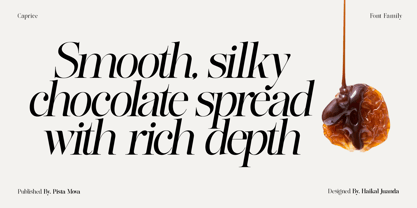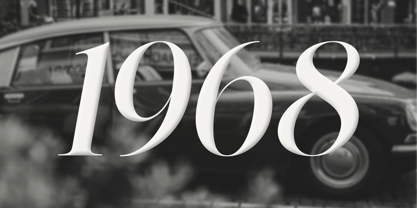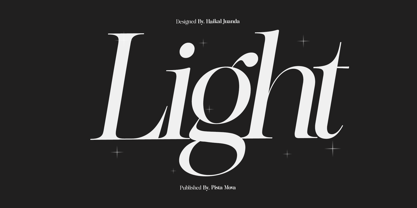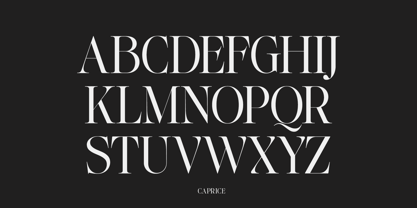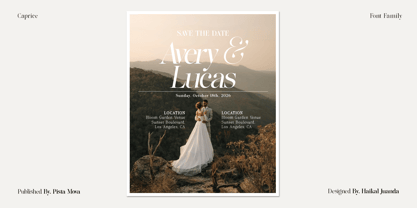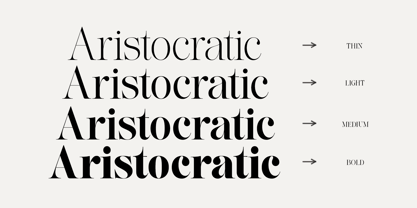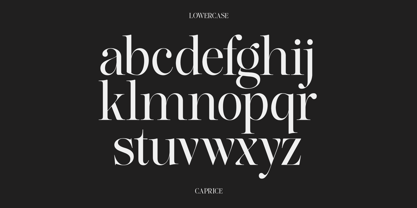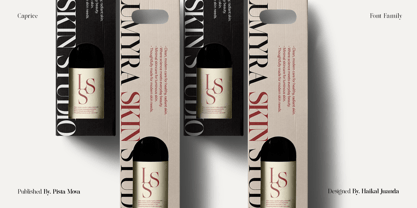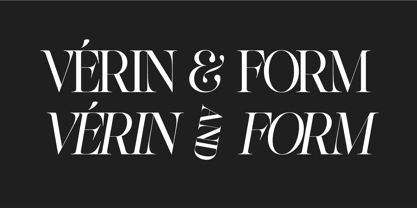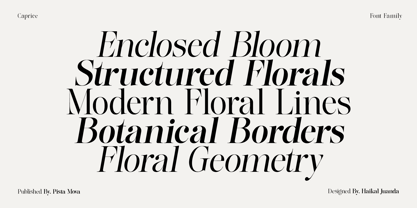
Lifestyle Icons
The Lifestyle Icons Font Family was designed by Haikal Juanda and published by Pista Mova. Lifestyle Icons contains 9 styles and family package options. More about this family
Introducing Lifestyle Icons A Modern Serif with Timeless Elegance Lifestyle Icons is a thoughtfully crafted serif typeface designed to bring refined elegance into contemporary design. This complete package includes 8 font files across 2 family styles, offering exceptional versatility for a wide range of creative applications—from editorial layouts to distinctive brand identities. Blending classic charm with a modern sensibility, Lifestyle Icons features high-contrast strokes, graceful curves, and well-balanced proportions that create a sophisticated visual rhythm. Every character is designed to feel confident yet subtle, enhancing the overall aesthetic of any design. Whether used for elegant editorial compositions, bold branding, or engaging web experiences, Lifestyle Icons delivers a refined presence that elevates your work. Step into the world of Lifestyle Icons, where each letterform is meticulously shaped to express both strength and delicacy. Carefully sculpted serifs and harmonious proportions reflect the enduring power of classic typography, while true italics add a dynamic flow and distinctive personality—bringing movement, clarity, and visual interest to your layouts. Key Features Effortless Elegance Clean lines and balanced proportions create a timeless look that adapts beautifully to modern design needs. Multilingual Support Supports over 90 languages, ensuring your message reaches a global audience with confidence. True Slant Not a simple slant—these italics are purpose-built to harmonize with the upright styles, delivering a cohesive and elegant rhythm. Perfect For Editorial Design Magazines, newspapers, and books—Lifestyle Icons offers excellent readability paired with timeless sophistication. Branding & Logos Create strong, memorable brand identities with a refined and luxurious tone. Web Design High contrast and clean forms ensure optimal legibility across all screen sizes. Packaging & Print Elevate product packaging and printed materials with a touch of understated luxury. Invitations & Stationery Leave a lasting impression through elegant typography on invitations, greeting cards, and stationery. What’s Included Lifestyle Icons Variable Lifestyle Icons Slant Experience the harmony of elegance and versatility with Lifestyle Icons. Download today and unlock a world of refined typographic possibilities. Happy creating!